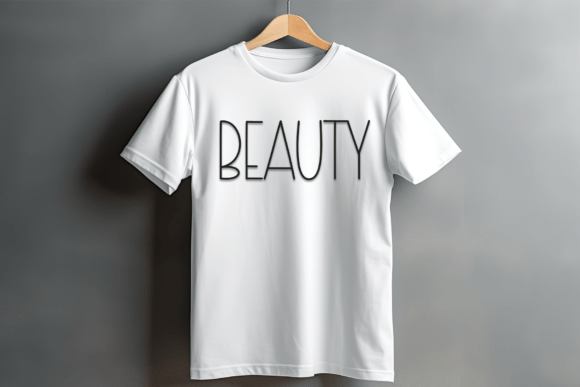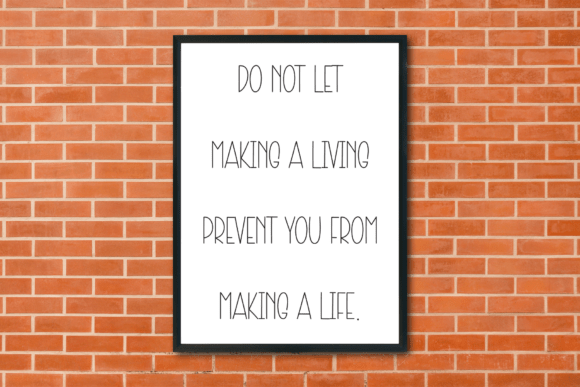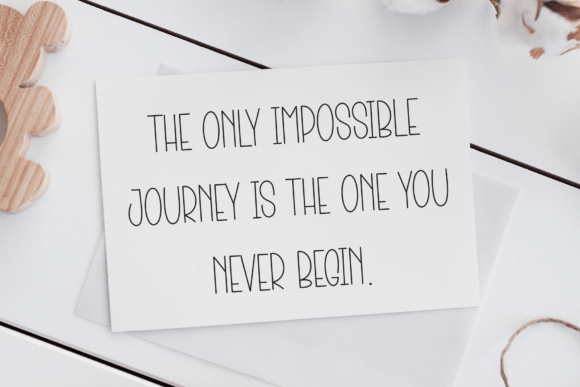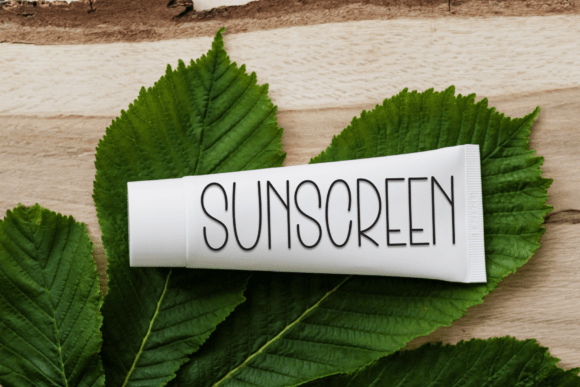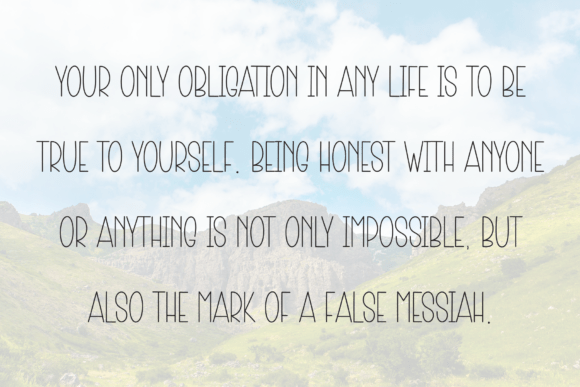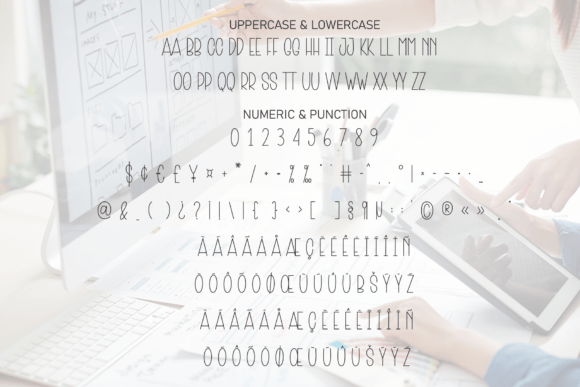
The Perfect Blend of Simplicity and Charm: Unlocking the Potential of Designer Font
As a designer, there’s nothing quite like the thrill of bringing a new project to life. The blank canvas, the endless possibilities, and the rush of creativity that comes with it. It’s in these moments that we’re reminded why we fell in love with design in the first place – the pursuit of beauty, the quest for perfection, and the joy of creating something truly special.
Enter the Designer Font, a casual and neat display font that’s perfect for adding a touch of warmth and personality to your designs. With its clean lines, balanced letterforms, and subtle rounded edges, this font is ideal for branding, headlines, packaging, and digital content. Whether you’re a seasoned pro or just starting out, the Designer Font is a valuable addition to your toolkit, offering a versatile style that delivers clarity and charm in equal measure.
Designer Font Review
I’ve had the chance to work with “Designer Font” for a while now, and I must say it’s been an interesting experience. There are some aspects that I really like, while others could use some improvement.
- Unique Character: The font has a distinct personality that sets it apart from other fonts in its category.
- Professional Appearance: It’s perfect for creating a sleek and modern look in designs.
- Wide Compatibility: It works well across various devices and platforms, making it a great choice for projects that need to be accessed by a wide audience.
- Limited Font Sizes: The font becomes quite pixelated when used at very small sizes, which can be a problem for designs that require a lot of fine detail.
- Not Ideal for Body Text: While it’s great for headings and titles, it’s not the best choice for body text due to its relatively small character set.
Overall, I think “Designer Font” is a great addition to any designer’s toolkit. While it may have some limitations, its unique character and professional appearance make it a great choice for projects that require a bit of flair.
Designer Font is ideal for:
- Creating visually appealing typography for branding materials.
- Designing engaging graphics for social media and advertising.
- Developing unique and creative layouts for presentations and reports.